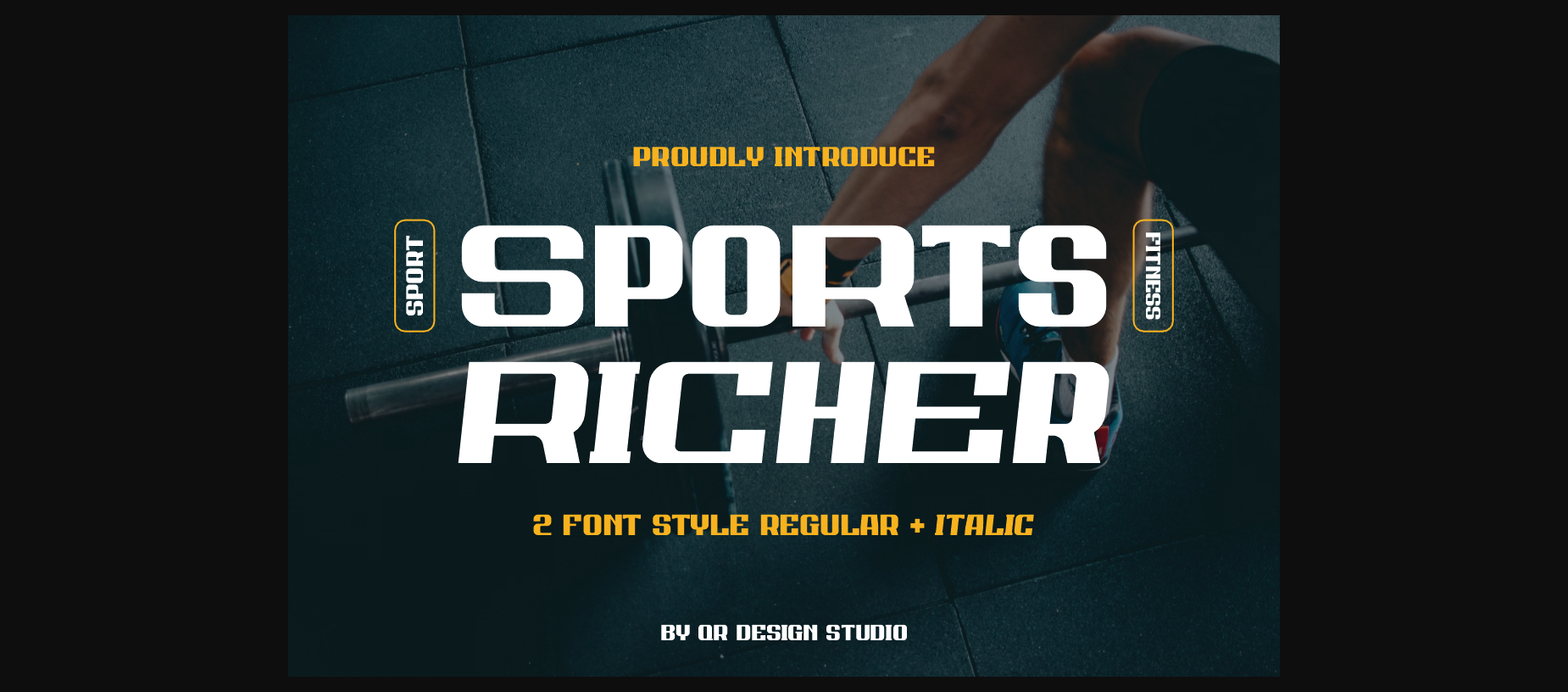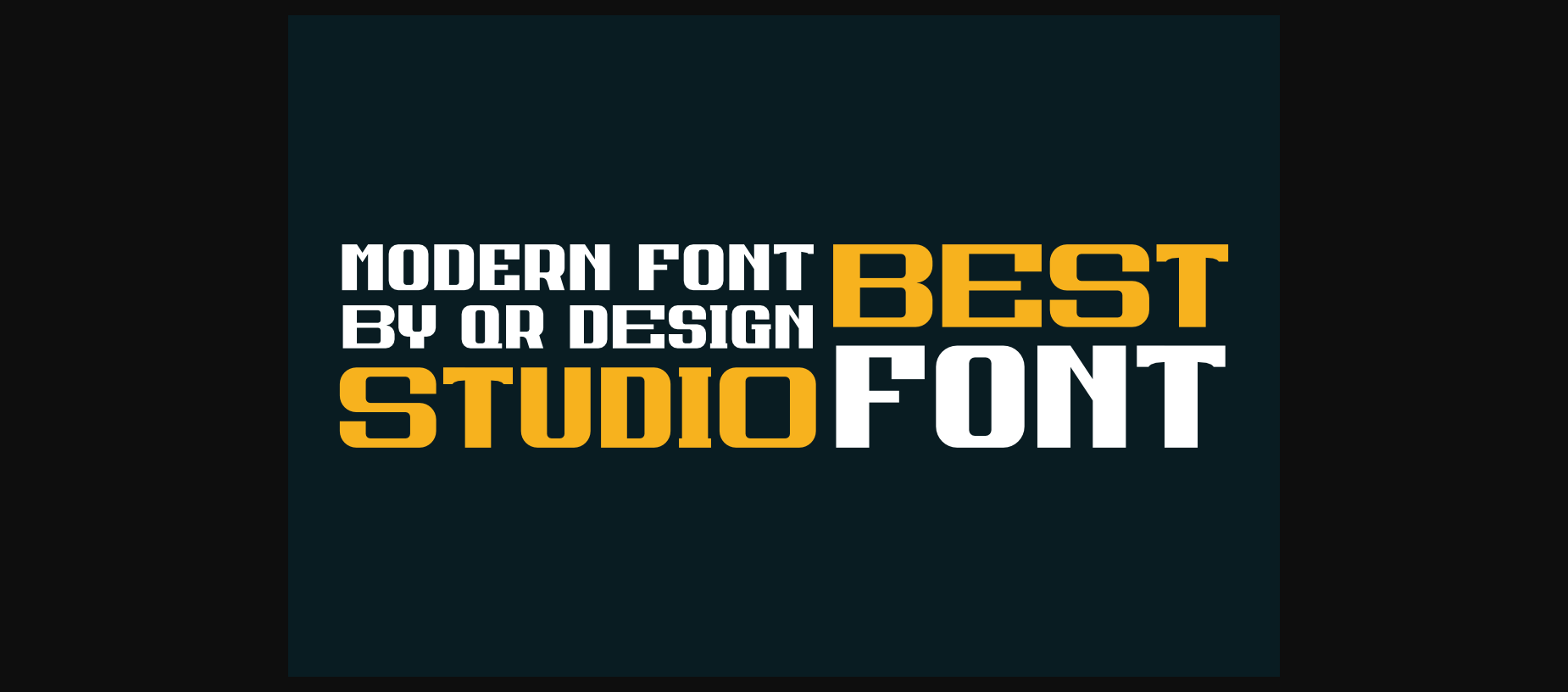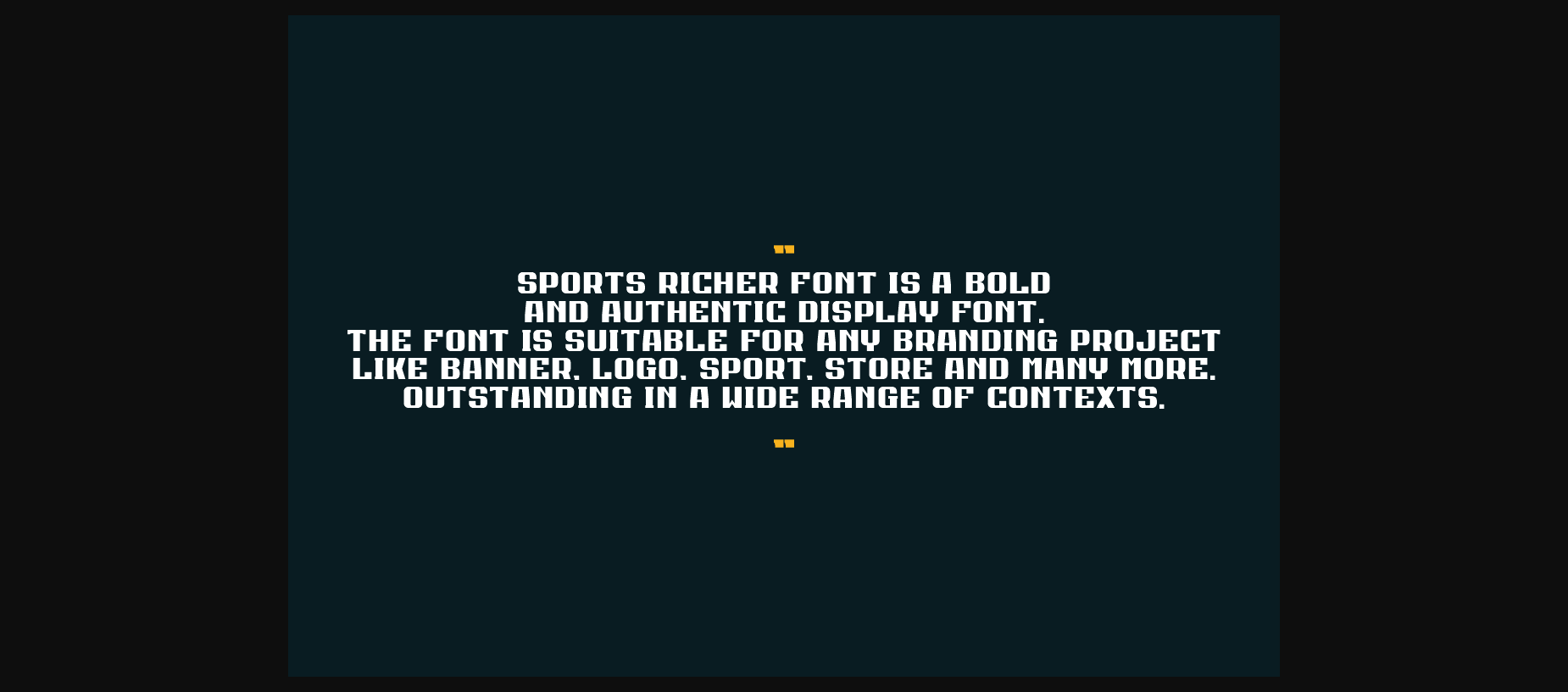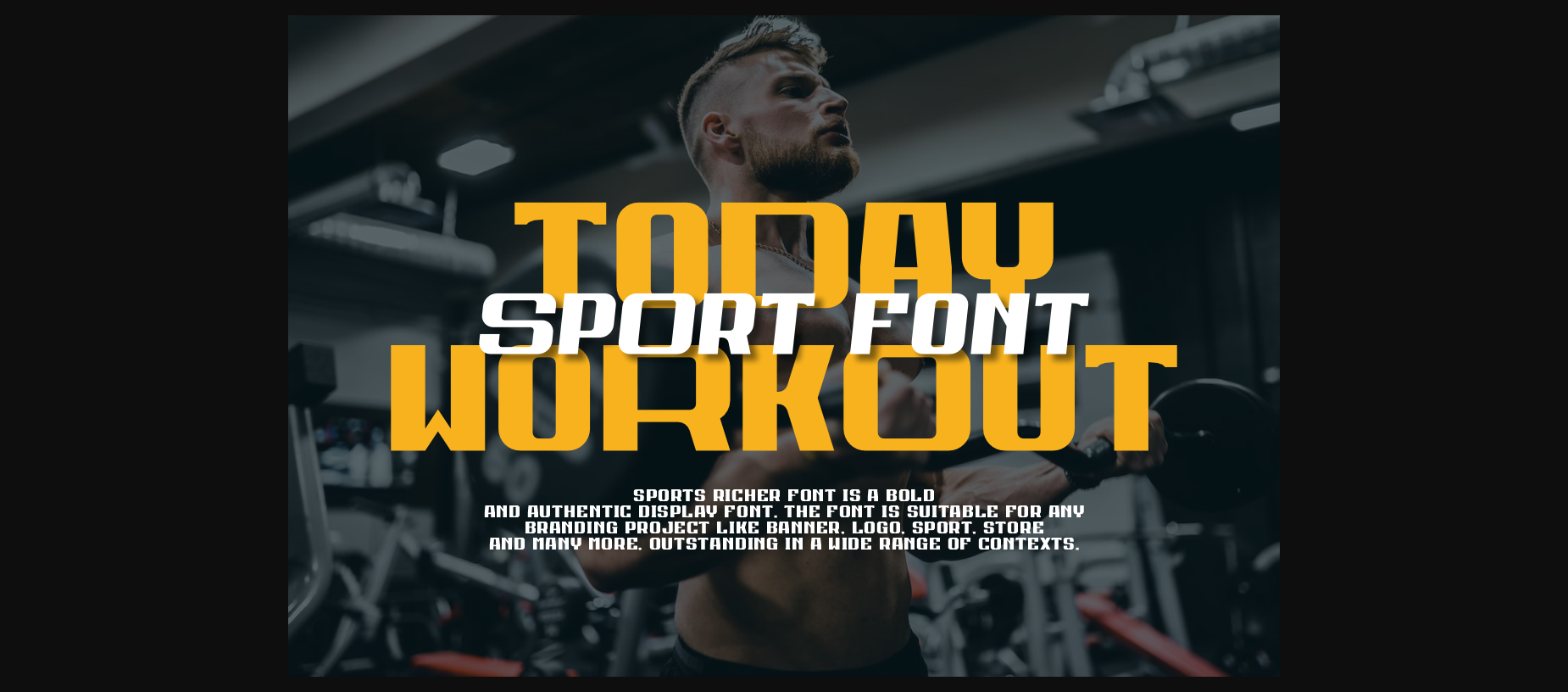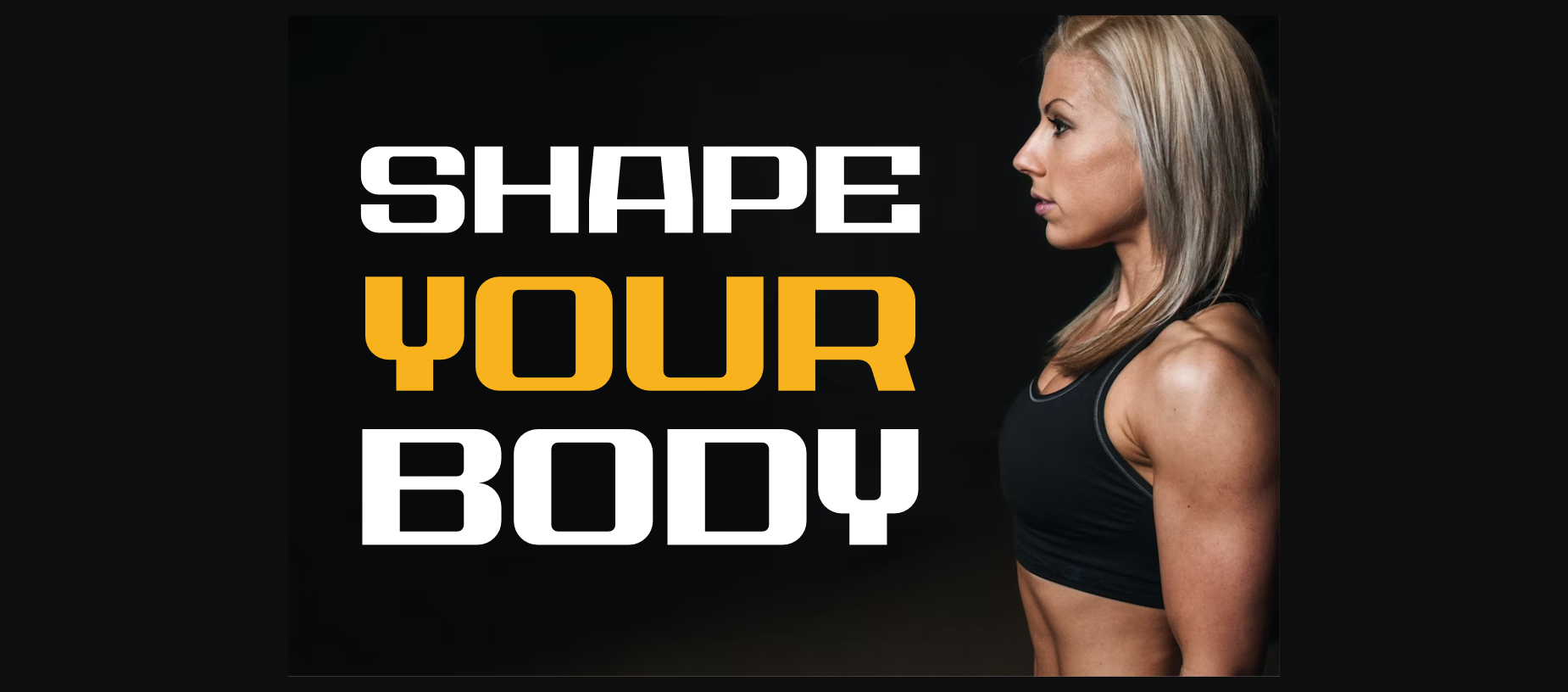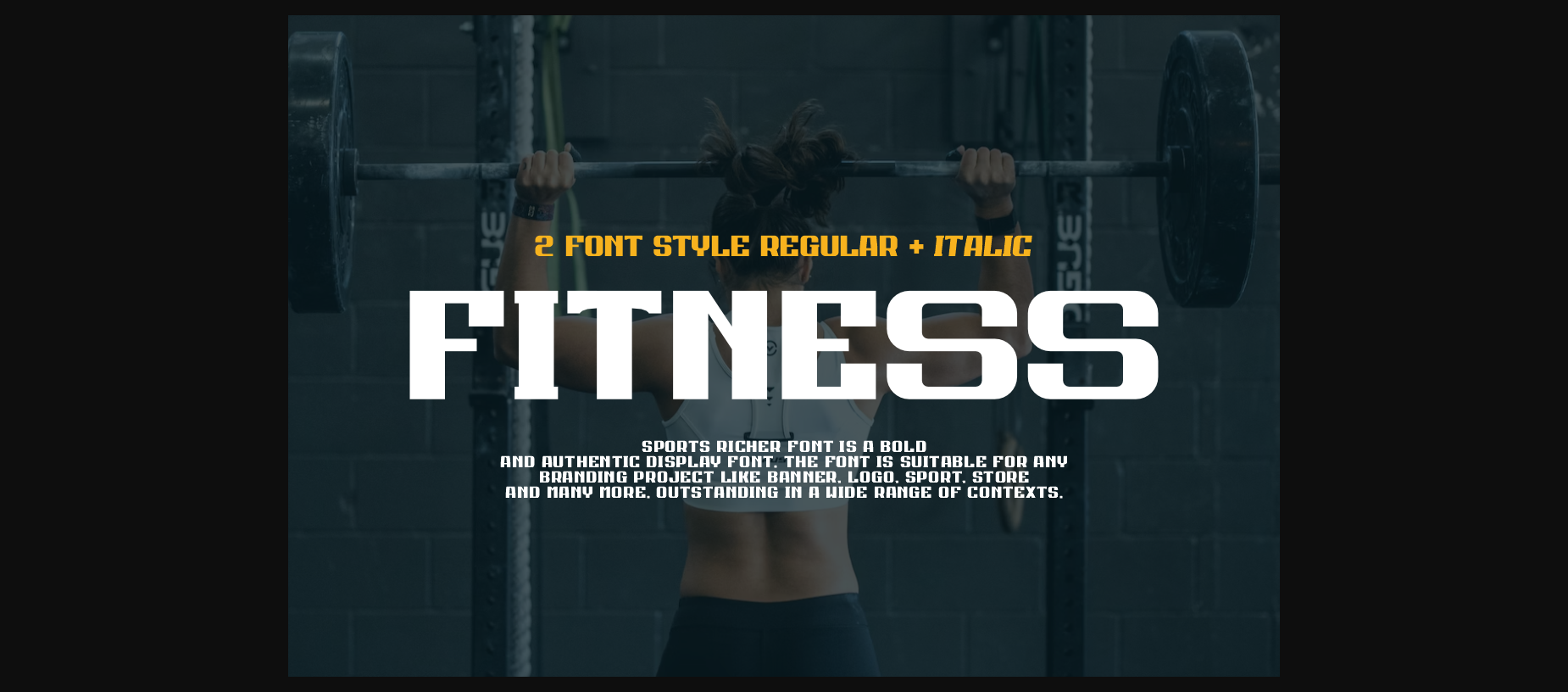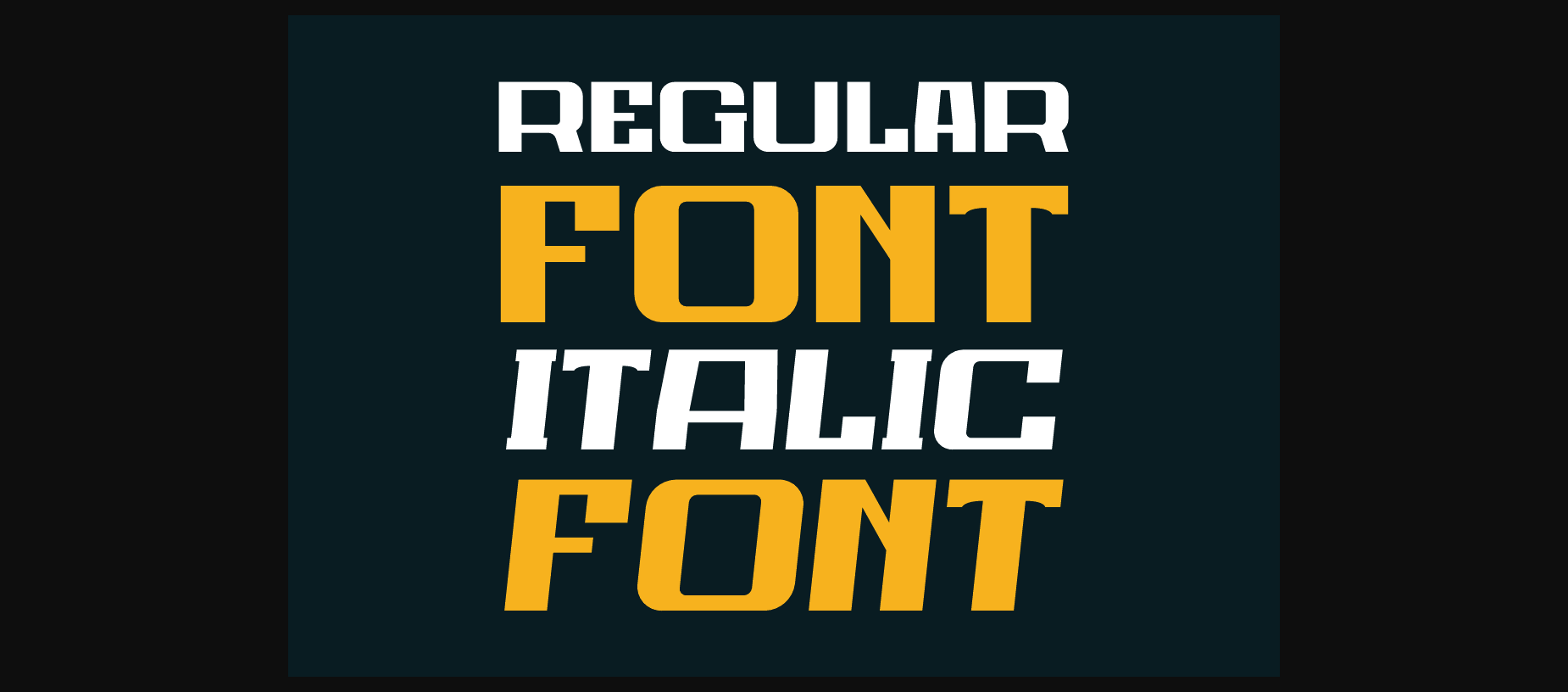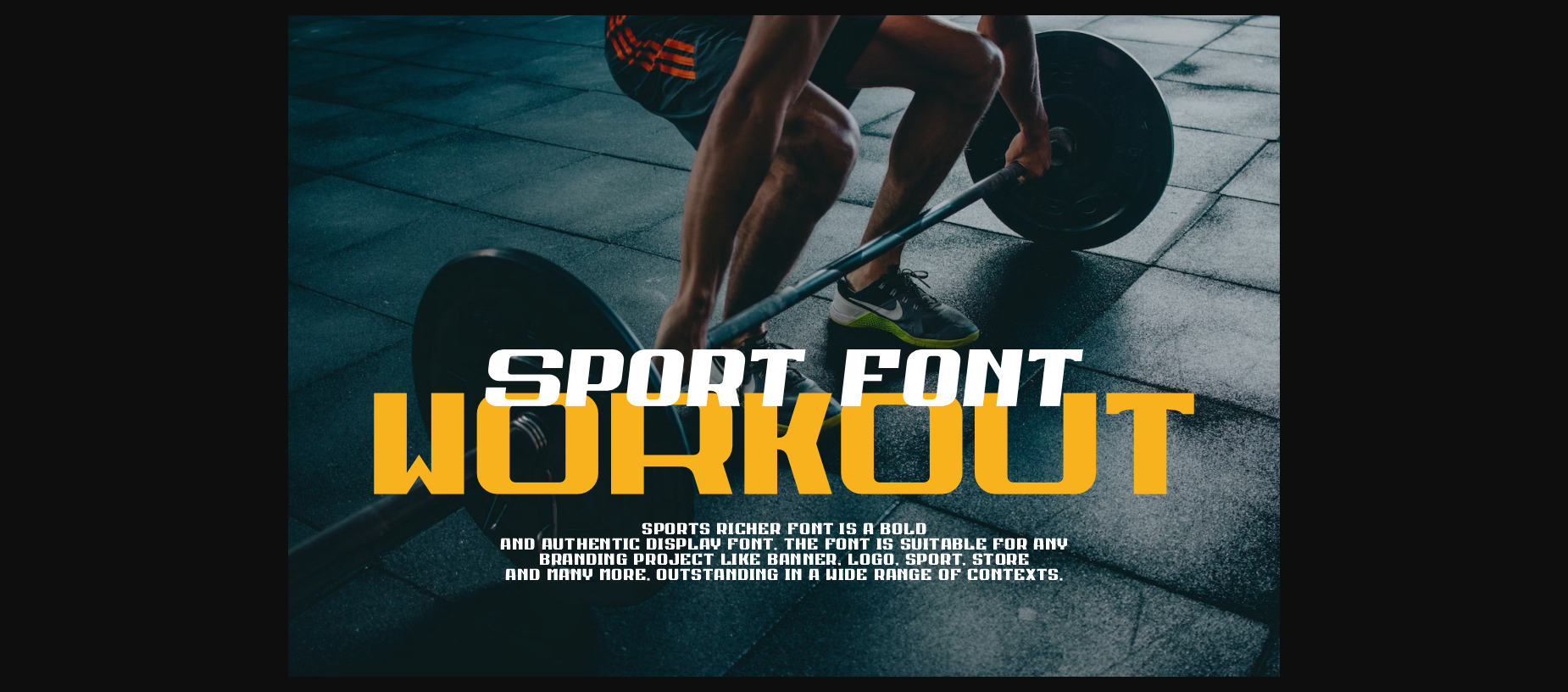
Sports Richer Font
About Sports Richer Font
Sports Richer is a bold, all caps sans serif font featuring the perfect amount of trendiness. Whether you’re using it for crafting, digital designing, presentations or greeting cards making, it’s perfect!